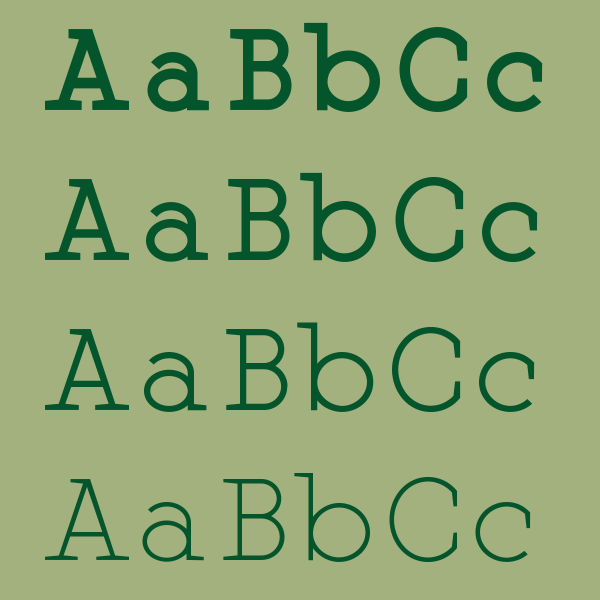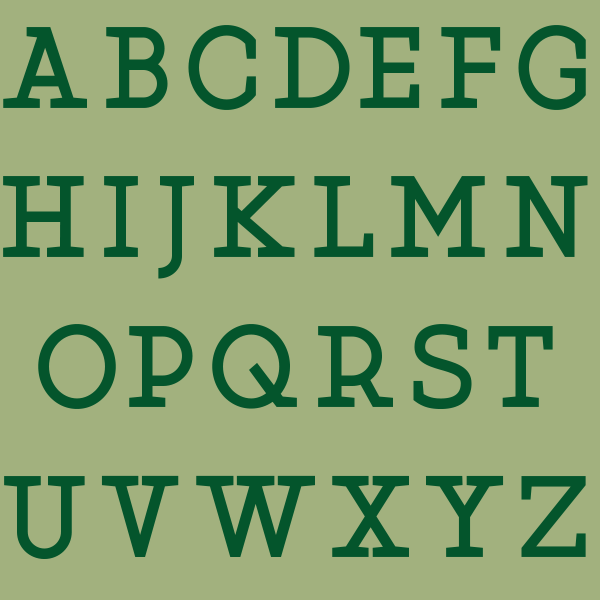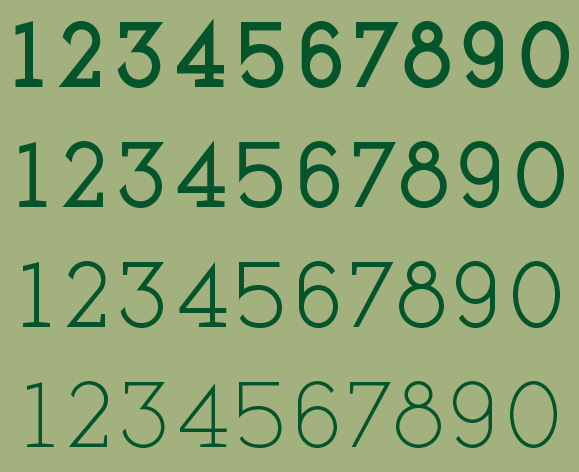
Free Font Of The Day #45 – Martell
Martell
Slab font designed by Adrian Candela, great for display purposes as well as for mid sized texts. It comes in four weights (light, regular, bold and black) and it is free to download and use.